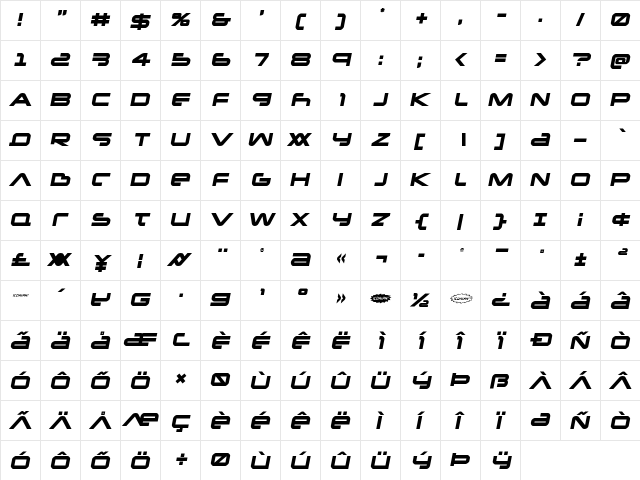
New Mars Semi-Italic Semi-Italic
Design Context for New Mars Semi-Italic Typeface
New Mars Semi-Italic is a composed and adaptable typeface that performs quietly and consistently across a wide range of design contexts. Its italic angle brings a sense of urgency and motion to the letterforms.
Pro Tip: Try New Mars Semi-Italic for annotation and caption copy alongside an upright companion — the contrast in angle creates a dynamic but ordered typographic system.